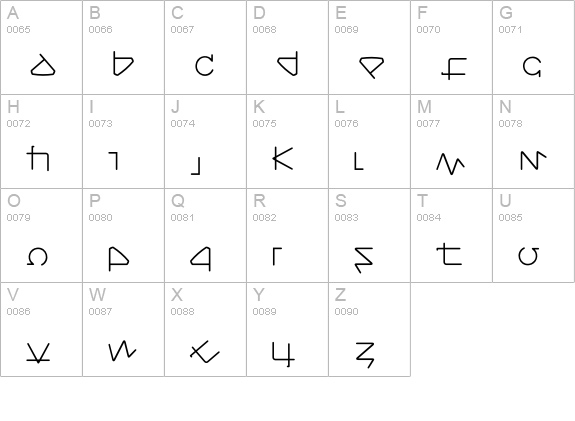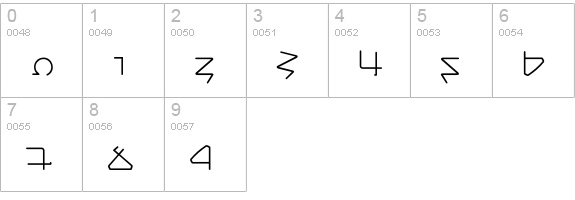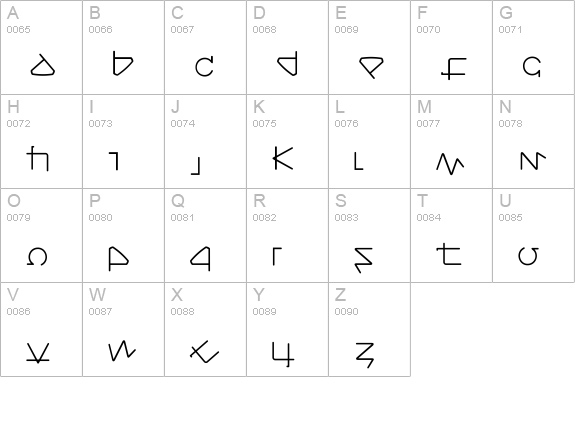
ProzacPlain Font Details
ProzacPlain font is a modern and versatile typeface that exudes simplicity and elegance. With its clean lines and straightforward design, this font is perfect for a wide range of projects, from branding and advertising to web design and print materials. What sets ProzacPlain font apart is its ability to convey a sense of professionalism and sophistication while remaining approachable and easy to read. Whether you're designing a sleek corporate website or creating eye-catching marketing materials, this font is sure to make a strong impression. Best of all, ProzacPlain font is available for free download at FontsMarket.com. So why wait? Add this stylish and versatile font to your collection today and take your designs to the next level!